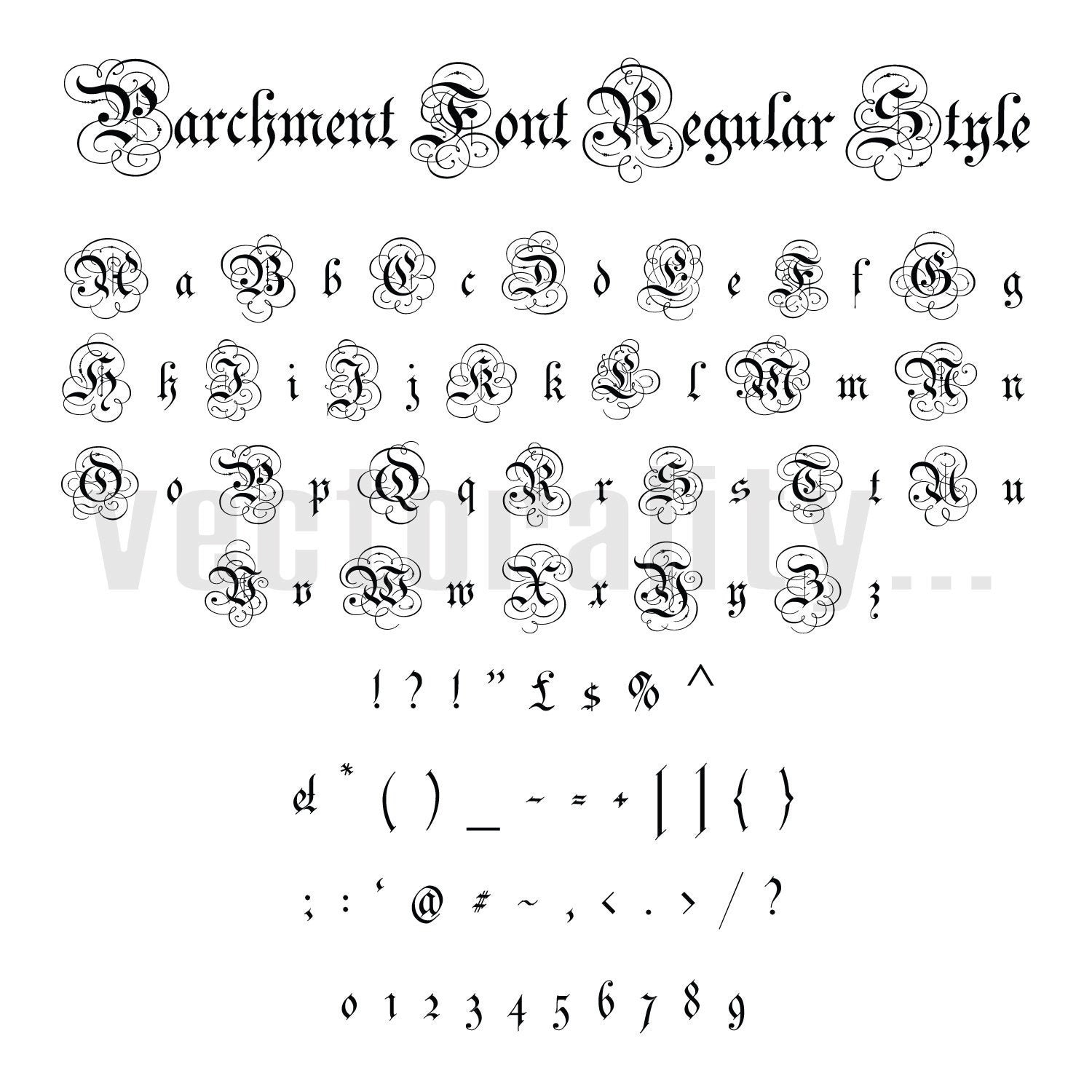
Parchment Regular Font
Parchment Regular Font - Parchment regular is the perfect font for all your fun designs. Web free download of parchment mf font. Web parchment regular is a regular truetype font. It has been downloaded 4 times. 0 users have given the font a rating of 0.0. Released in 1995 by rick mueller and licensed for personal and commercial. Web font parchment regular belongs to the categories blackletter, initial letter, ornament, story.